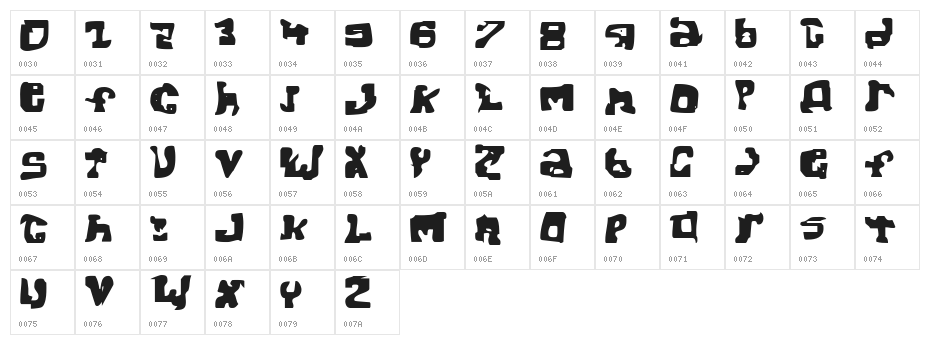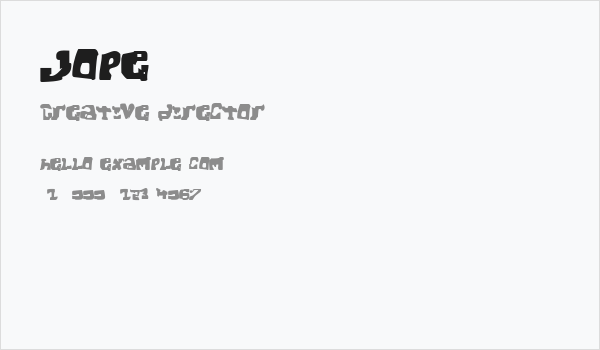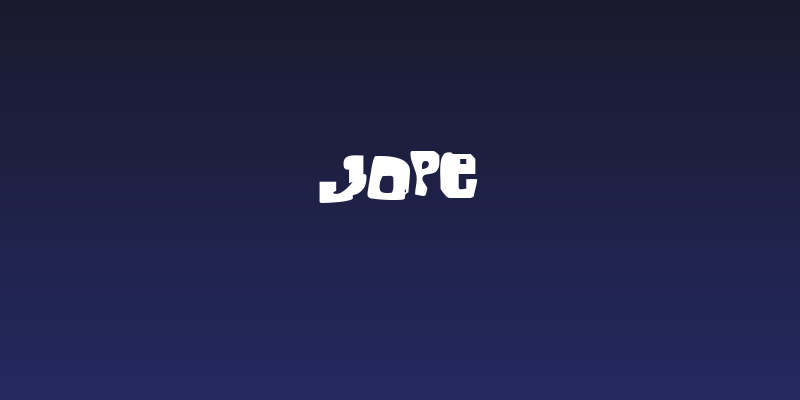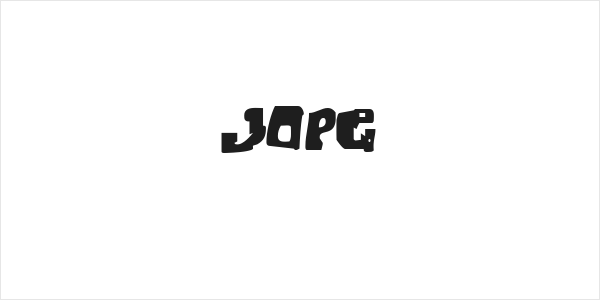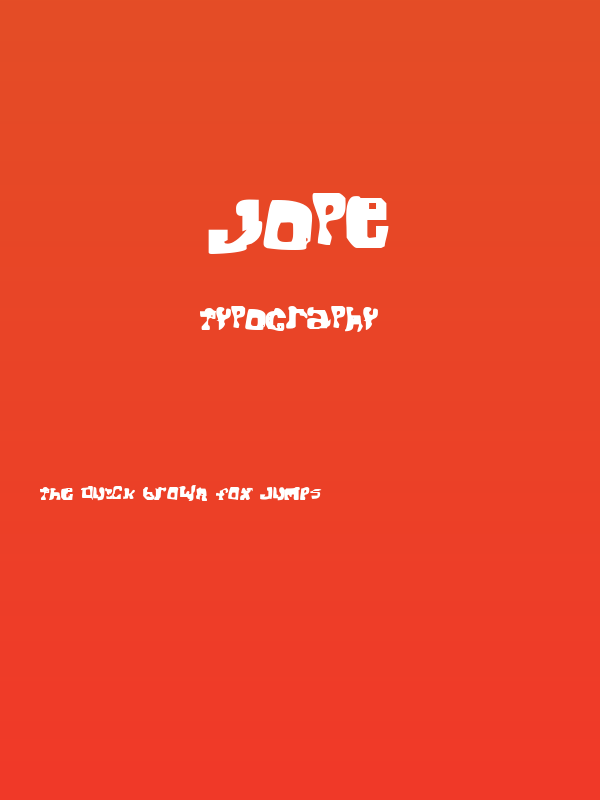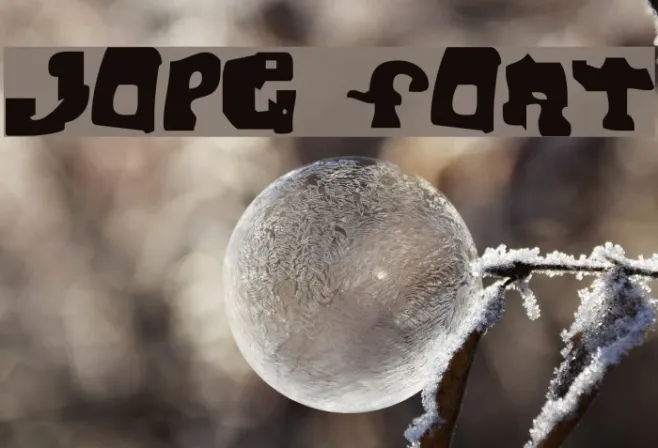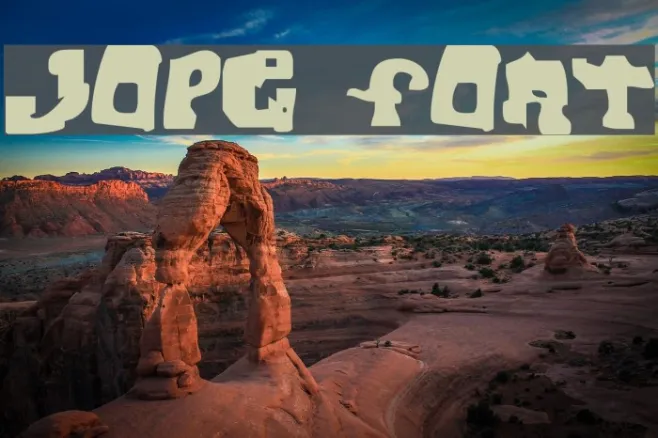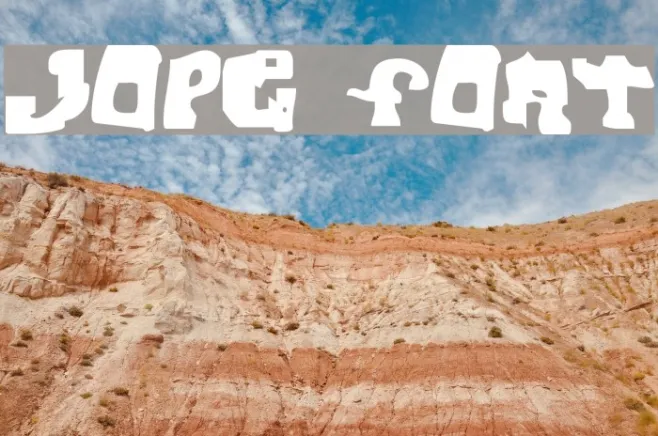
Jope Font
Jope Description
This font features a bold and striking design with a highly decorative and abstract style. The characters are heavily stylized with irregular shapes and varying thicknesses, creating a unique and artistic appearance. The letters have a playful and dynamic form, with some characters incorporating unexpected curves and angles. This font is designed to capture attention and convey a sense of creativity and boldness. The overall look is modern and unconventional, making it suitable for projects that require a distinctive and eye-catching typeface.
| Proposed Projects | Ideal for posters, album covers, branding for creative industries, and any design needing a standout, artistic typeface. |